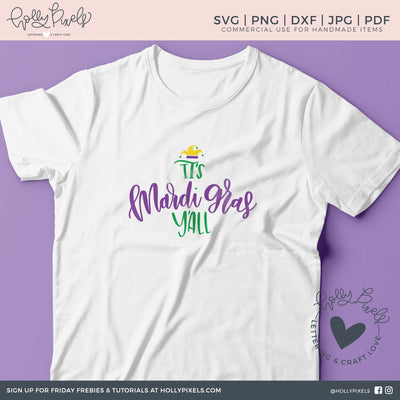
It's Mardi Gras Y'all SVG
It's Mardi Gras Y'all! This Mardi Gras SVG design features a Fat Tuesday SVG design showcasing your love for the holiday in Louisiana. This SVG file design is for Cricut, Silhouette Cameo and any other cutting machine that supports the file extensions listed below. Use this super cute design to craft fun projects, apparel, and gifts for your friends and family.
You're receiving the phrase: It's Mardi Gras Y'all (this is not a font, this is hand lettering). I'm sharing previews as examples of how you can use this really adorable design over and over again for your home business or personal use. Thanks for your support! No physical product is given to you. You are downloading the digital files to create your own gifts or products using the design file.